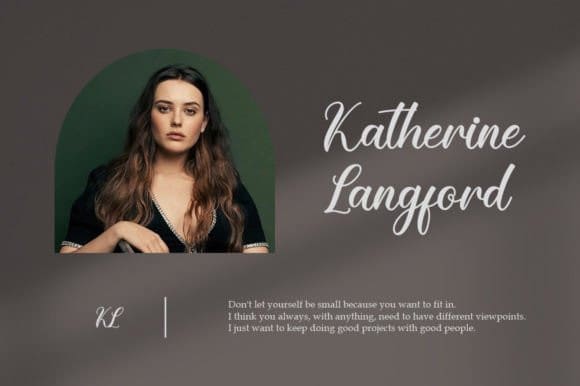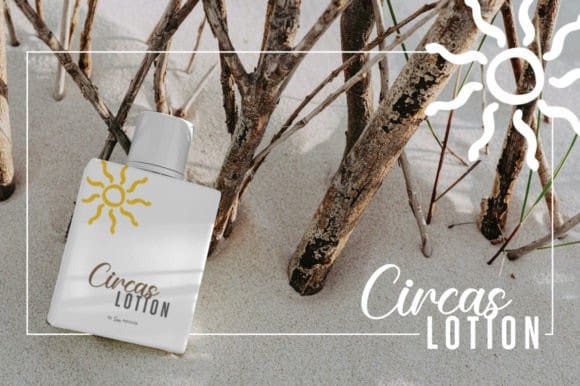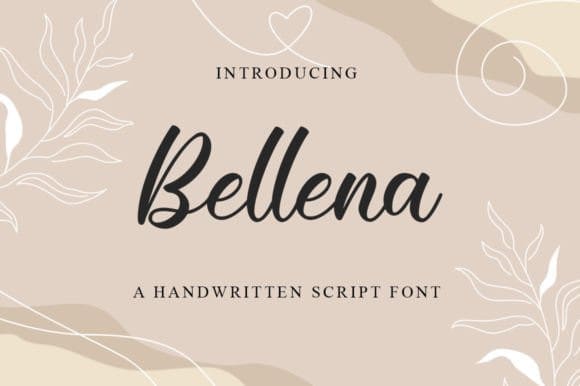
Bellena Script Font
Bellena Script Font is a lovely and timeless handwritten font. It is the best choice for creating eye-catching logos, branding, and quotes.